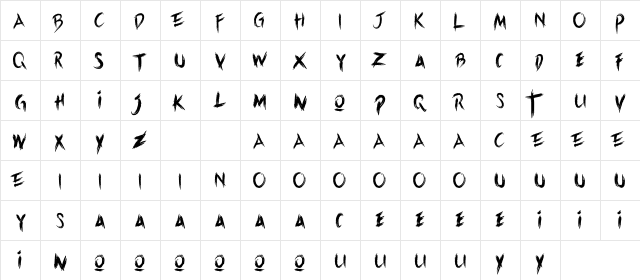
Blackdeath-Personal Regular
| Foundry | Masdika Studio |
| Designer | Septiandika Pratama |
Design Context for Blackdeath-Personal Typeface
Blackdeath-Personal carries an unsettling edge — its distorted letterforms are built to unsettle, perfectly suited to horror, Halloween, and dark creative work.
Perfect for anything that needs to unsettle — game titles, horror branding, and macabre invitations.
Font Pairing: Pair with a clean neutral sans-serif for body copy to let Blackdeath-Personal's character lead without overwhelming the composition.
Pro Tip: Use Blackdeath-Personal at larger display sizes for maximum impact. Consider generous tracking to let the disturbing character of each letterform breathe.